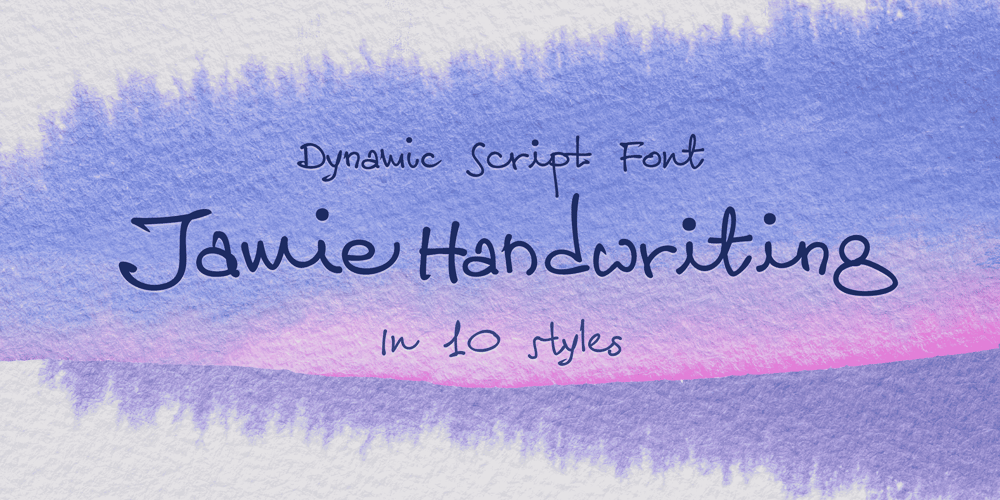
Jamie Handwriting
Jamie Handwriting font
Jamie Handwriting Font Family was designed by Måns Grebäck and published by Mans Greback. Jamie Handwriting contains 10 styles and family package options. Jamie Handwriting is a charming hand-script font. Its contextual and stylistic alternates makes for a typography indistinguishable from a true handwritten text. Jamie Handwriting’s cute and quirky lettering fits any project or contexts that requite that extra bit of genuineness and life. It is wild and funny to look at, and its quick movements emits a happy optimism. The family consists of ten high-quality styles:The weights Thin, Light, Medium, Bold, Black as well as each style as Regular and Alternate. The different thicknesses ensures it will work in any size, and the Alt style prevents any repeating characters. Jamie Handwriting is built with advanced OpenType functionality and has a guaranteed top-notch quality, containing stylistic and contextual alternates, ligatures and more features; all to give you full control and customizability. It has extensive lingual support, covering all Latin-based languages, from North Europe to South Africa, from America to South-East Asia. It contains all characters and symbols you’ll ever need, including all punctuation and numbers.